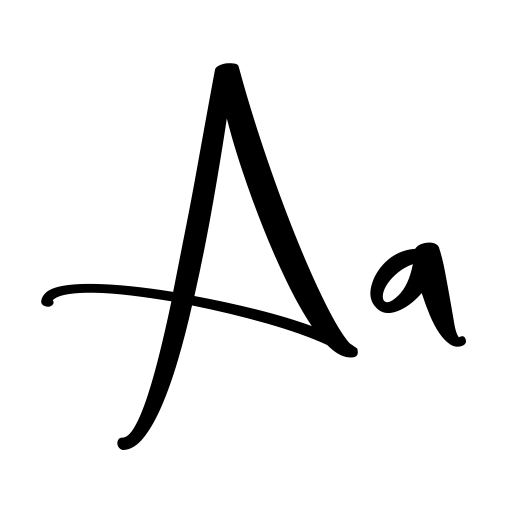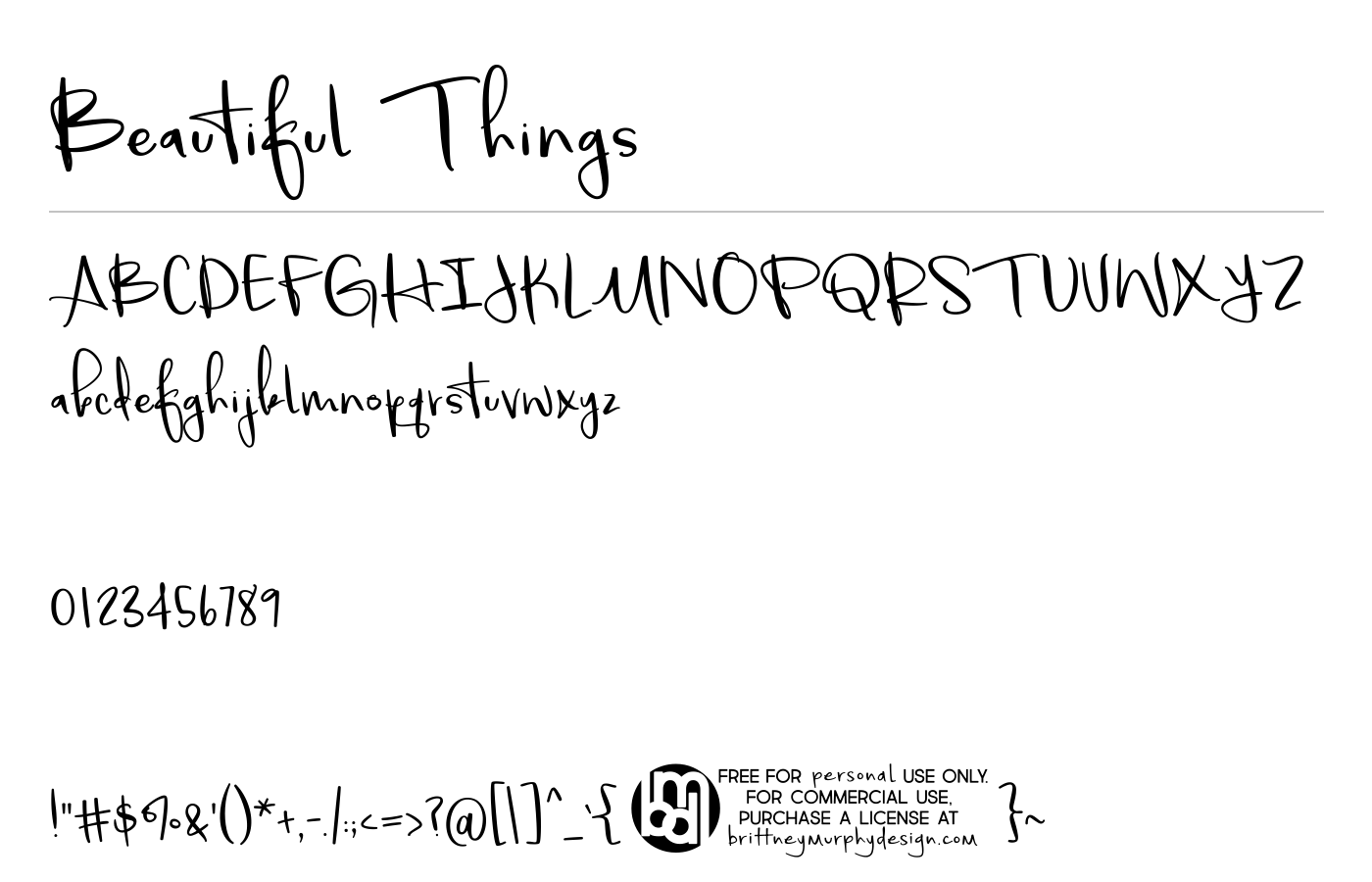
Beautiful Things Font is a playful handwritten script with an informal and whimsical vibe. Its tall, narrow letterforms and varying stroke widths create a casual, personal feel that’s perfect for creative projects, invitations, or branding that aims to communicate friendliness and charm. This font works best for headlines, logos, and any design where a relaxed, approachable touch is desired.
Beautiful Things Font
About Beautiful Things Font
| Font family | Beautiful Things Font |
| Designer | Brittney Murphy |